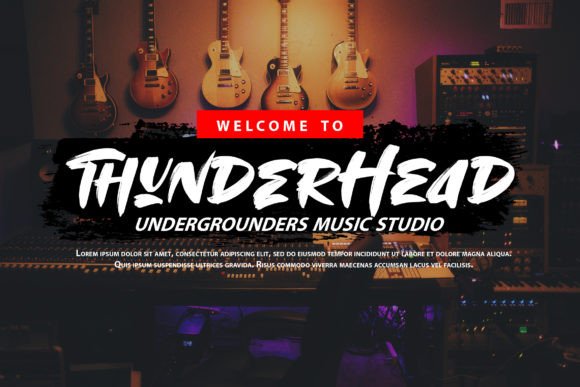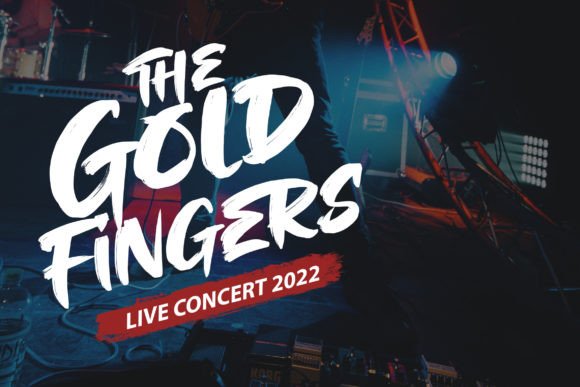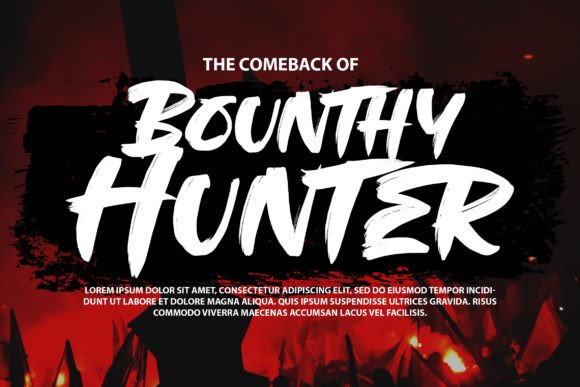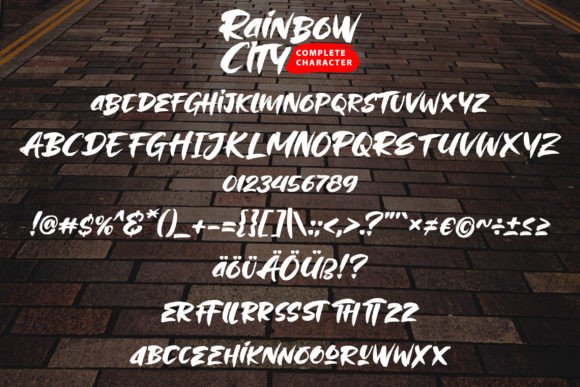
Introduction to Rainbow City Font
Rainbow City is a fresh, bold, and modern handwritten brush font.
It works great as a display typeface as well, whether you use it for headlines, posters, stickers, or apparel Rainbow City is PUA encoded which means you can access all the glyphs and ligatures with ease.
Key Features of Rainbow City Font